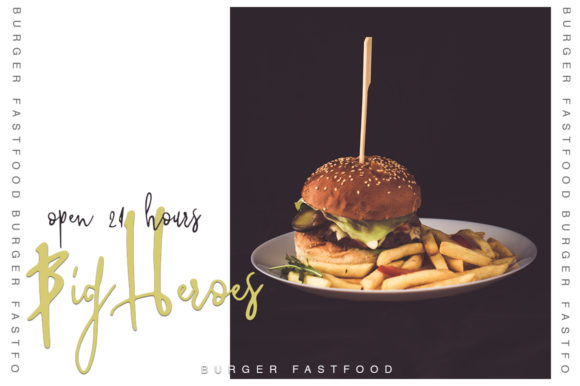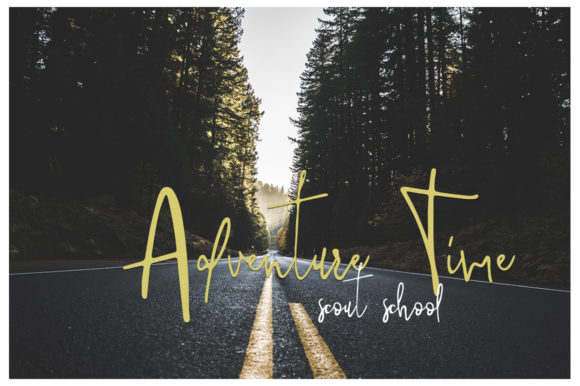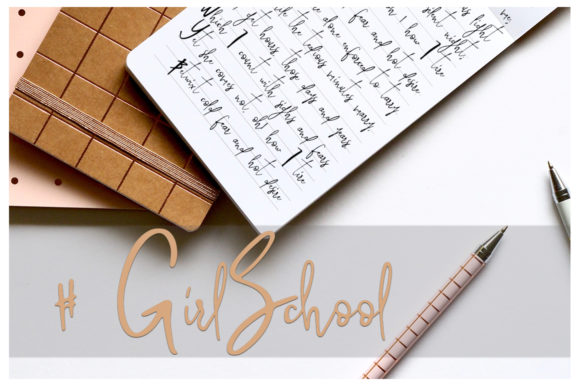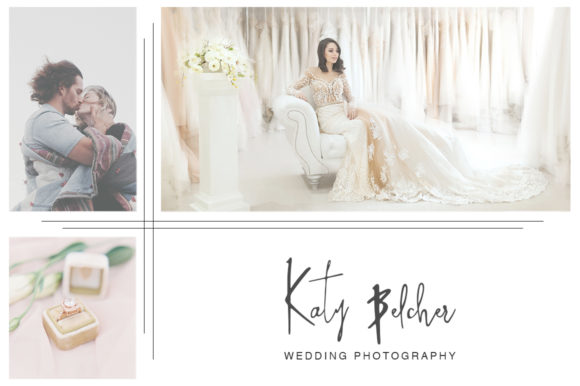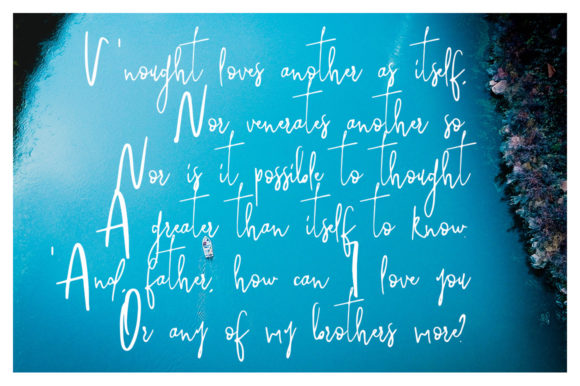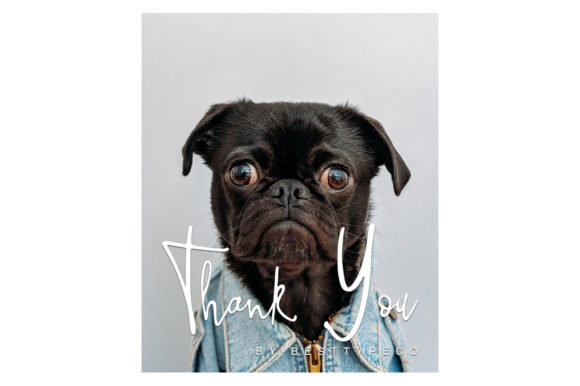
Introduction to Heart of Stone Font
Heart of Stone is a lovely and timeless handwritten font.
Key Features of Heart of Stone Font
Why Choose Heart of Stone Font?
Heart of Stone Font offers exceptional quality and versatility, making it a valuable addition to your design toolkit. Whether you’re creating for personal projects or commercial use, Heart of Stone Font delivers professional results.